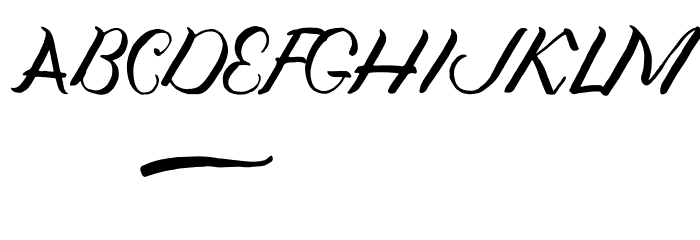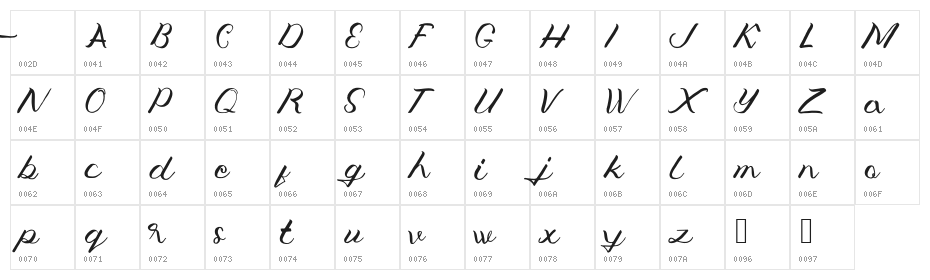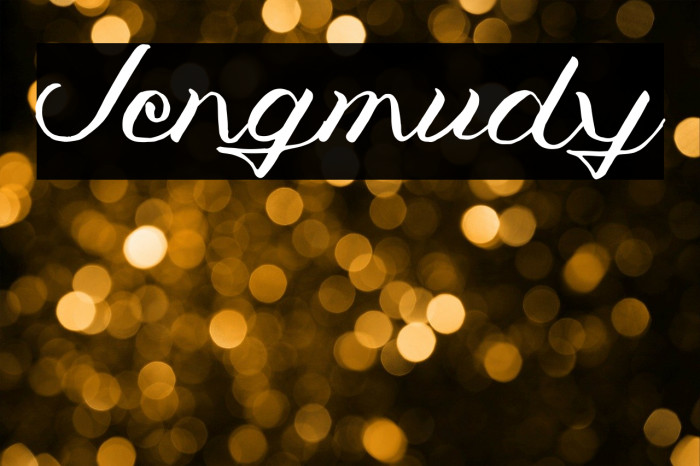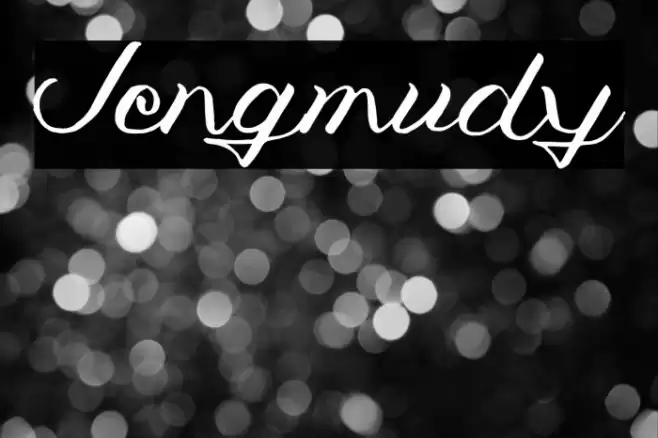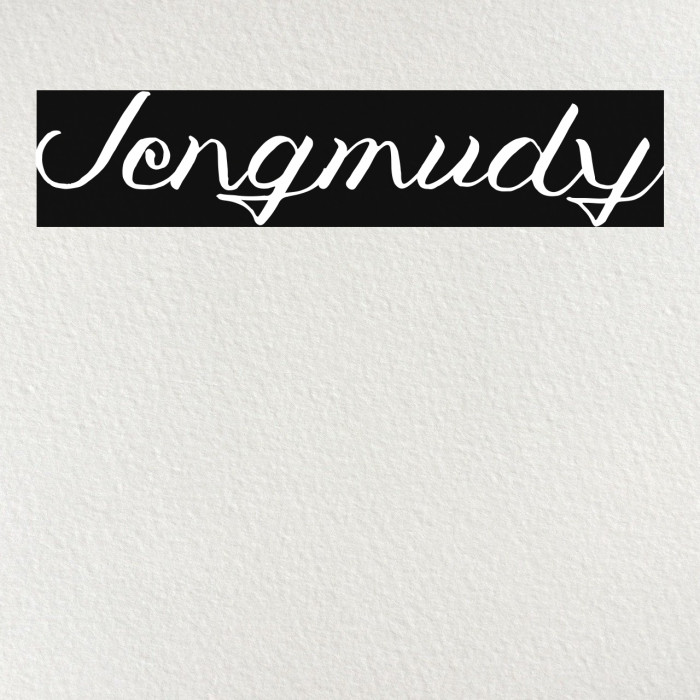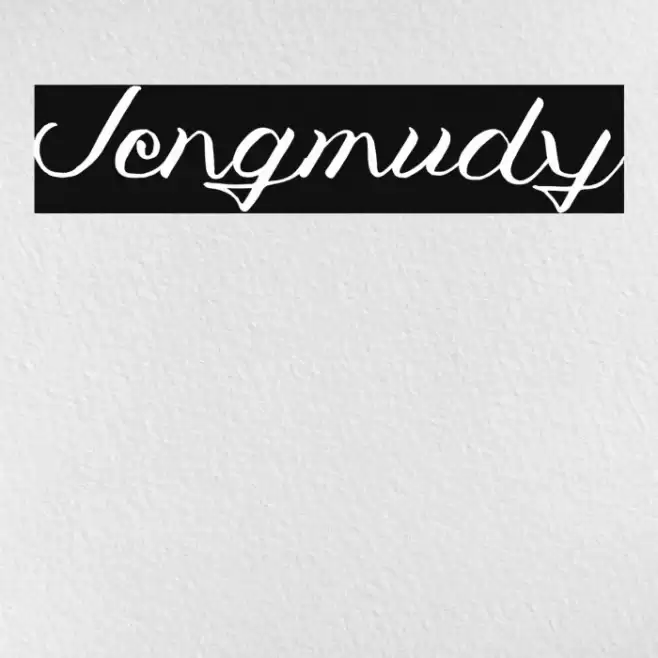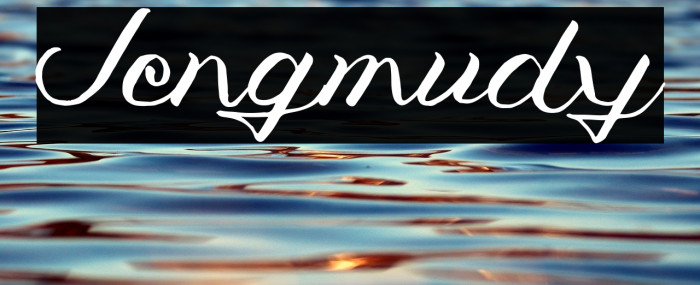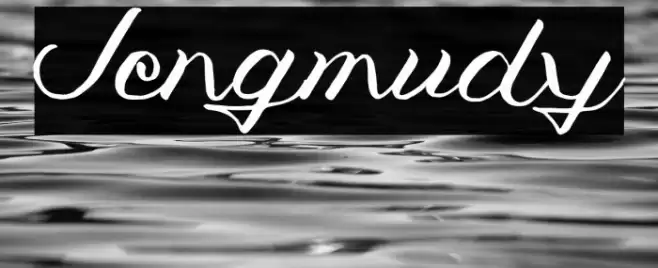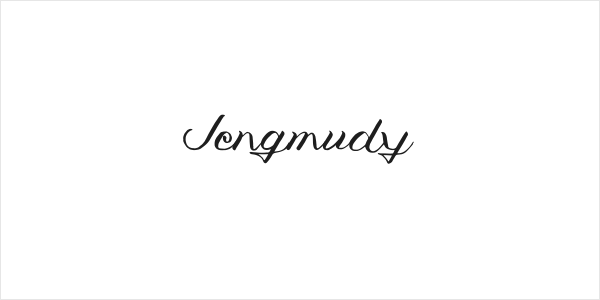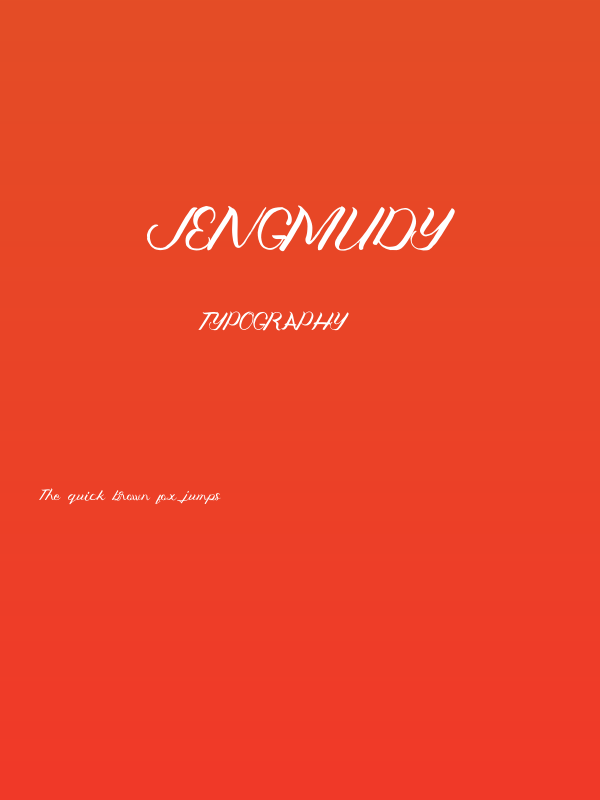
Jengmudy Font
Jengmudy Description
This font features a flowing, cursive style with elegant, sweeping strokes that give it a sophisticated and artistic appearance. The uppercase letters are bold and expressive, while the lowercase letters maintain a consistent fluidity, enhancing the overall aesthetic. The font's design is reminiscent of traditional calligraphy, with a modern twist that adds a unique flair. The characters are well-balanced, with a harmonious blend of thick and thin lines that create a dynamic visual contrast. This font is perfect for projects that require a touch of elegance and creativity.
| Proposed Projects | Ideal for wedding invitations, greeting cards, branding, and artistic projects. |